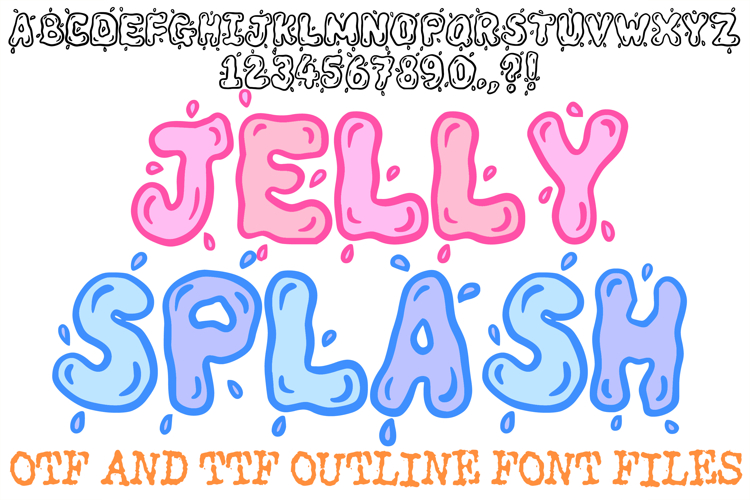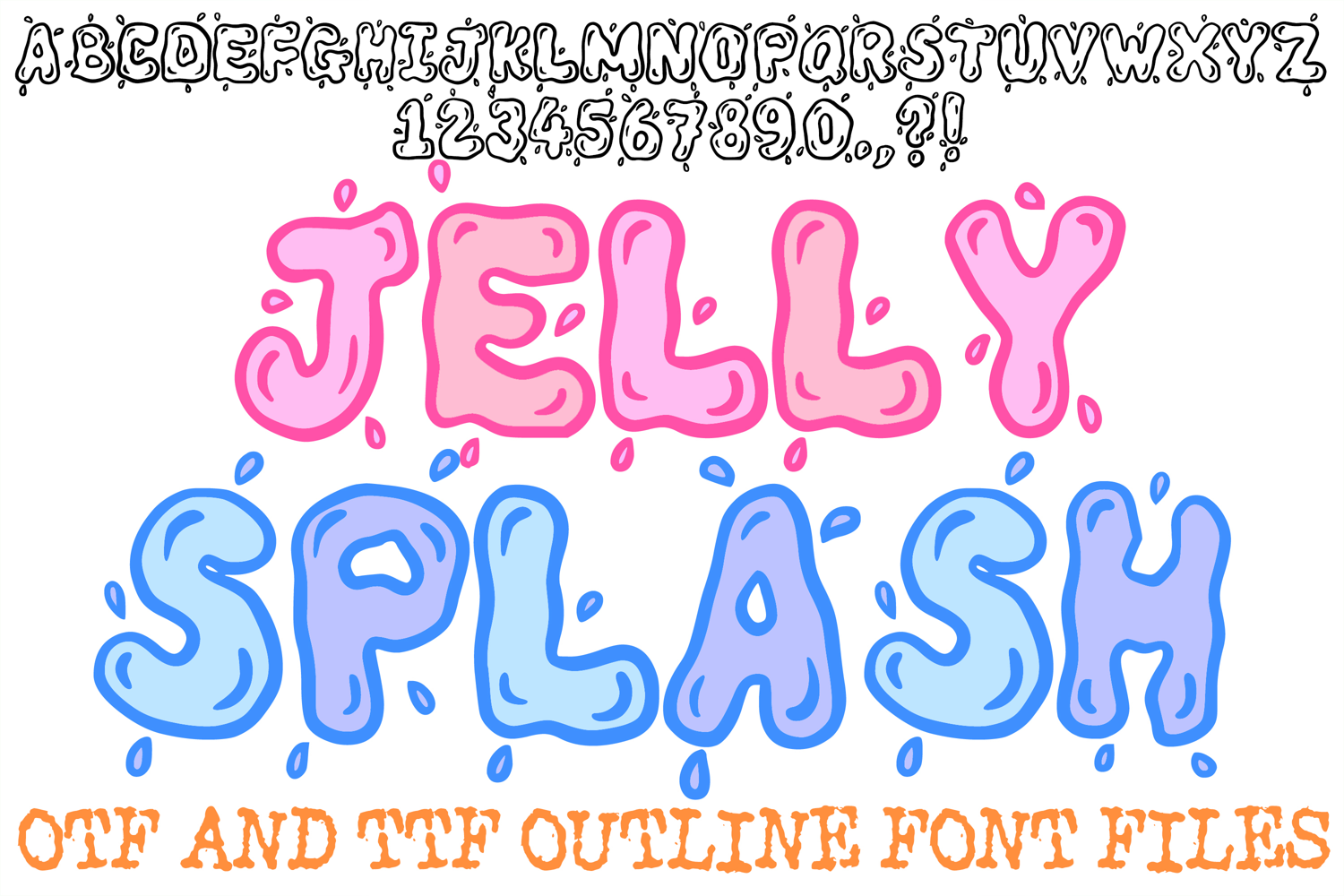
Jelly Splash Alphabet Lettering Font Liquid ABC OTF TTF Type
The Jelly Splash Font is a vibrant, high-energy display typeface that captures the wobbly, fluid motion of gelatinous treats and liquid droplets. Featuring bold, rounded letterforms accented by dynamic "splat" graphics and dripping terminals, this font is a premier choice for designers working on candy shop branding, children’s birthday invitations, summer festival posters, and playful social media content.
The design captures a sense of squishy fun, with hand-drawn outlines and interior bubble highlights that give each character a glossy, three-dimensional personality. Whether you are building an identity for a snack brand or designing high-impact apparel for a youth event, this font provides a sweet, high-contrast aesthetic that feels both organic and refreshing.
Dynamic Splash Accents: Each character is surrounded by stylized droplets and liquid bursts, adding a sense of messy, joyful movement to your text.
Glossy Bubble Construction: The thick, rounded letterforms feature subtle interior marks that suggest a shiny, "wet" surface.
Playful Squishy Theme: Perfectly tailored for dessert-themed projects or water-based activities, making it a versatile choice for a wide range of youthful designs.
High-Impact Display: The bold weight and clean outlines ensure that your headlines remain eye-catching and legible on posters, banners, and digital assets.